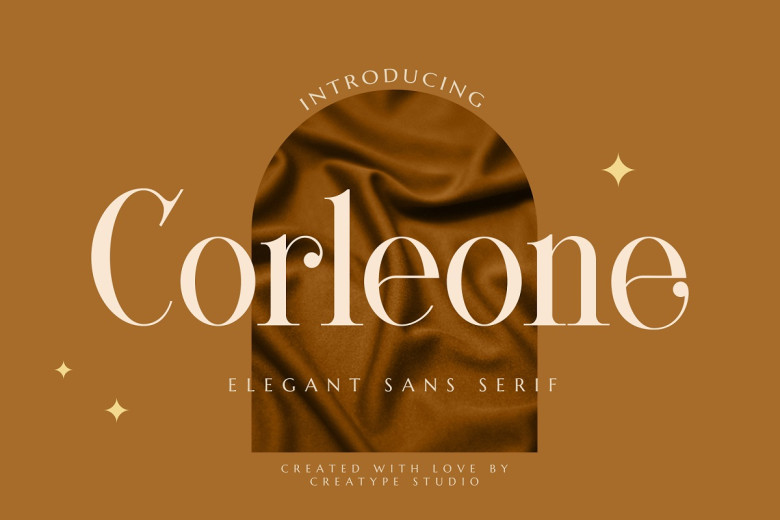
Corleone Font
Corleone Serif font has an elegant, sophisticated appearance which infuses every word with timeless appeal. This typeface speaks softly yet powerfully – ideal for logos, weddings, social media posts and advertisements; as well as product packaging design labels photography watermarks invitations stationery or any project which requires handwritten style fonts.
Corleone Serif Font